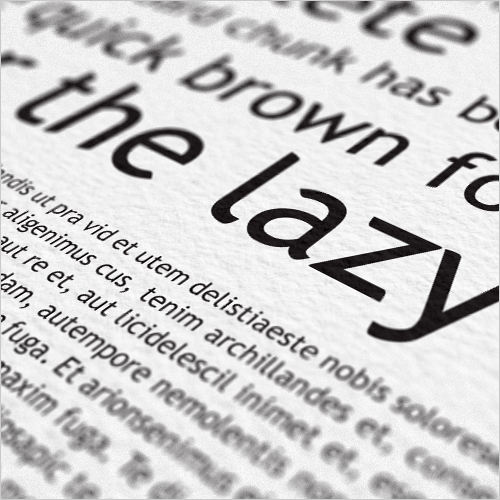
SD Fresh is a professionally tracked and kerned, low contrast typeface primarily for editorial and caption. SD Fresh was modified from Trebuchet MS named after a medieval catapult, designed by Vincent Connare in 1996 for Microsoft.